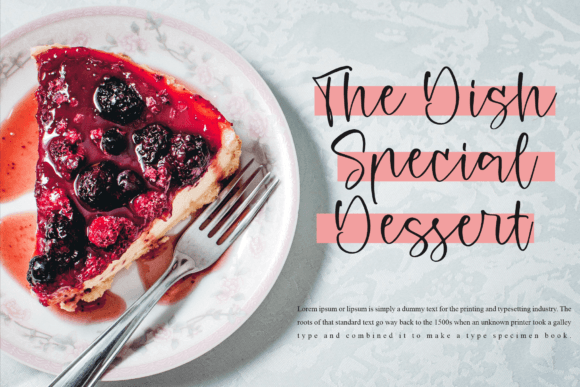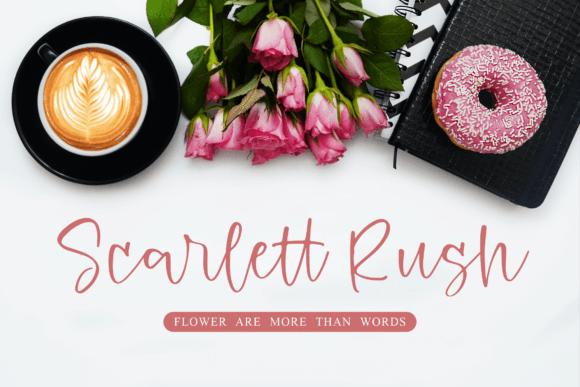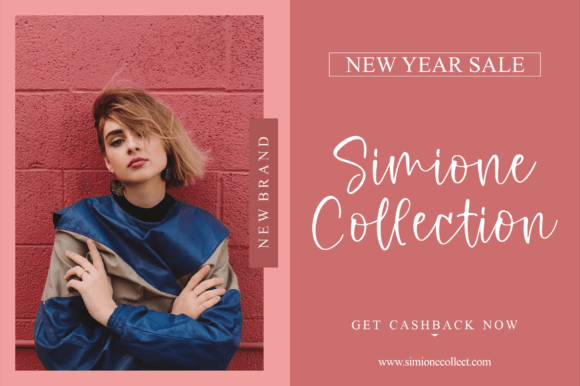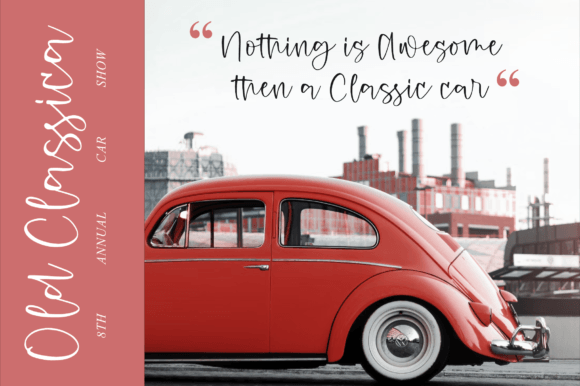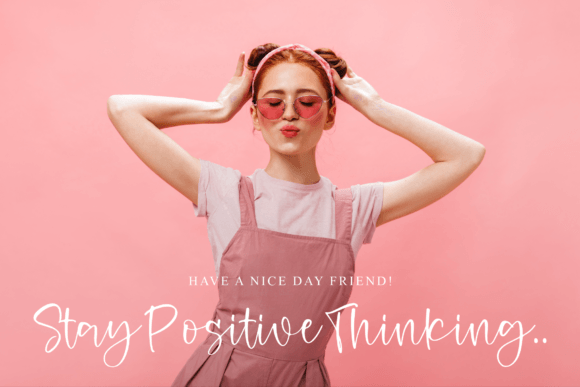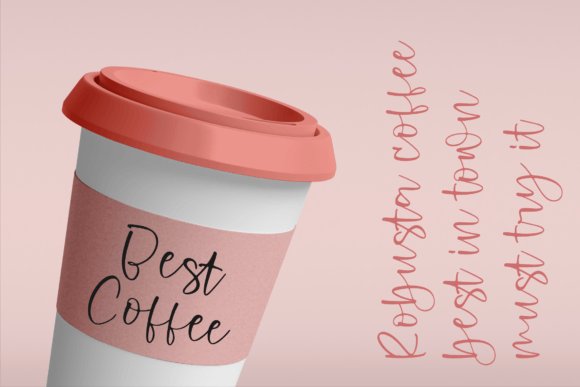
Introduction to Ferdish Cutties Font
Imagine you’re a graphic designer working on a high-end branding project, and you need a font that exudes elegance and refinement. You scroll through your design resources, and suddenly, you stumble upon the perfect companion for your creative project – the Ferdish Cutties Font. This exclusive script font is designed to make your designs stand out, with its carefully crafted serifs and luxurious curves giving it a distinguished presence.
As a designer, you know the value of having high-quality design resources at your fingertips. The Ferdish Cutties Font is a game-changer, offering a transparent background that lets your creativity shine through. With its PUA encoding, accessing all glyphs and swashes is effortless, making it a valuable addition to your design arsenal.
Key Features of Ferdish Cutties Font
- Unique, hand-drawn design perfect for creative projects that require a high-quality, whimsical touch.
- Includes a transparent background, making it easy to layer over other design elements.
- High-resolution design, ideal for use in print materials, web design, and digital projects.
- Perfect for designers looking for a distinctive, creative font to add a personal touch to their projects.
Honest Review: Ferdish Cutties Font
I recently had the chance to try out the Ferdish Cutties Font, and I must say it’s been a fun addition to my design resource collection. The font’s quirky and playful vibe makes it perfect for creative projects where you want to add a bit of whimsy.
What works well: ✨ The font’s high quality is evident in its smooth, crisp lines and precise shapes. The transparent background is also a great touch, making it easy to layer and customize in design applications. I’ve already used it in a few projects and it’s been a great way to add visual interest.
What doesn’t work as well: ⚠️ One thing to be aware of is that the font’s unique style can sometimes be overwhelming, making it difficult to use as a primary font in a design. It’s best used as an accent or highlight font to add a bit of flair.
- High quality, transparent background
- Perfect for creative projects and design resources
- Great for adding visual interest and personality to designs
The Ferdish Cutties Font is perfect for a variety of creative projects, including:
– Social media graphics
– Blog posts
– Brochures
– Flyers
For the best results, use the Ferdish Cutties Font on a transparent background to give your design a clean and modern look.